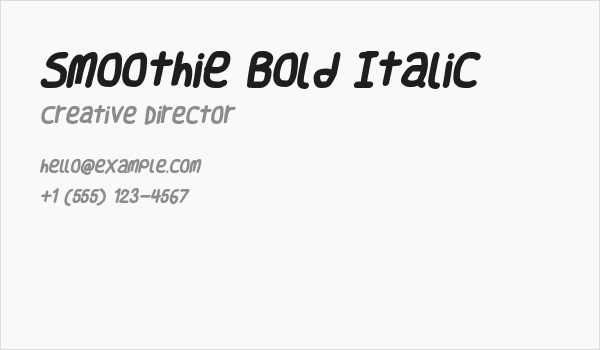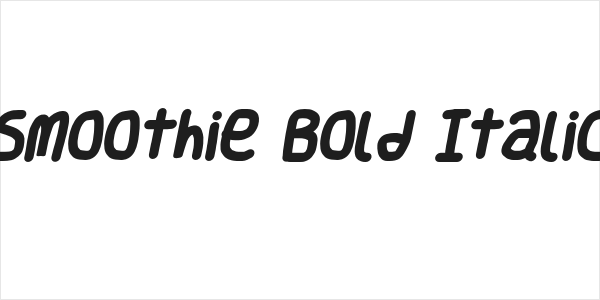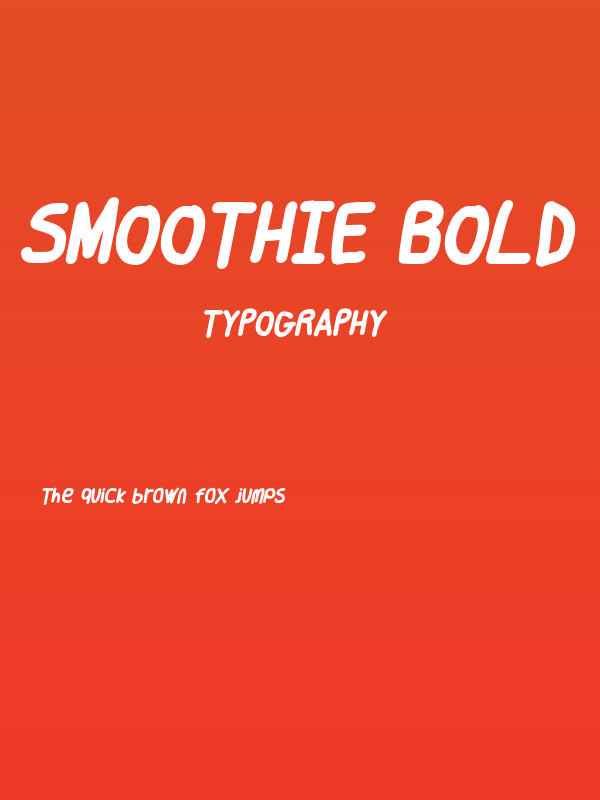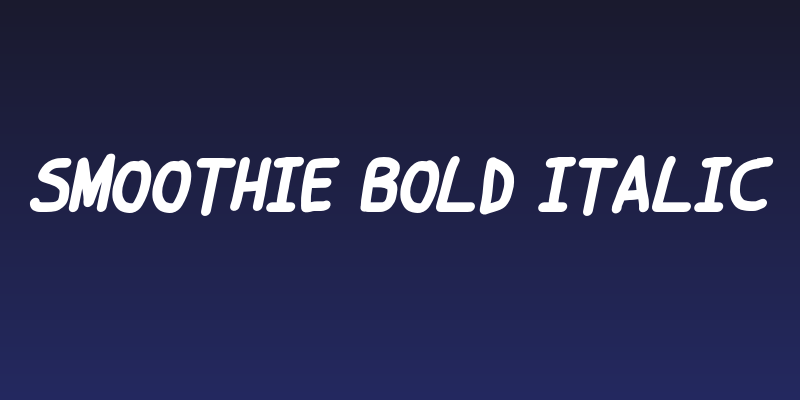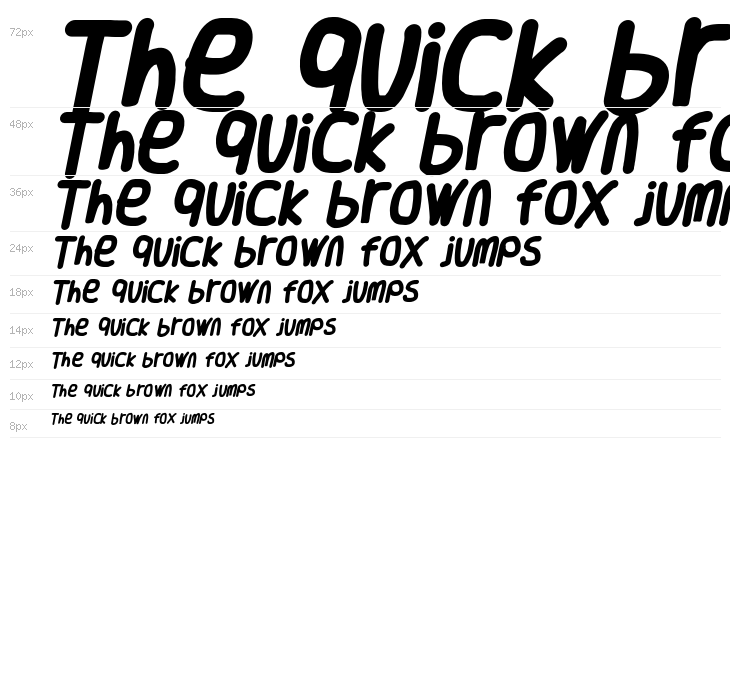
Smoothie Bold Italic Font
Smoothie Bold Italic Description
This font features a playful and bold style with a smooth, rounded appearance. The letters are slightly italicized, giving a sense of motion and fluidity. The uppercase and lowercase characters maintain a consistent thickness, contributing to a cohesive look. The numerals and special characters follow the same design principles, ensuring uniformity across all elements. Its boldness and rounded edges make it stand out, while the italic slant adds a dynamic touch. This font is both approachable and energetic, suitable for projects that require a friendly and engaging typeface.
| Overall Style | Playful and Dynamic |
| Proposed Projects | Ideal for children's books, playful branding, casual invitations, and social media graphics. |